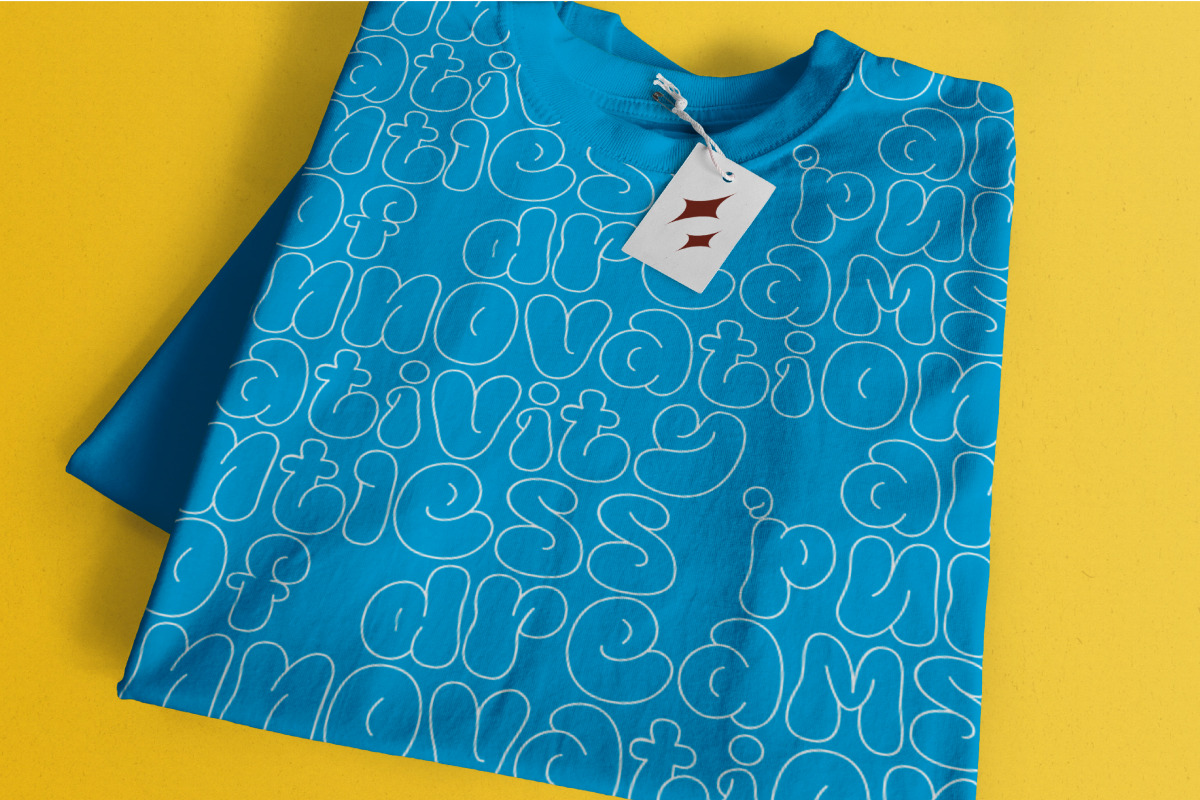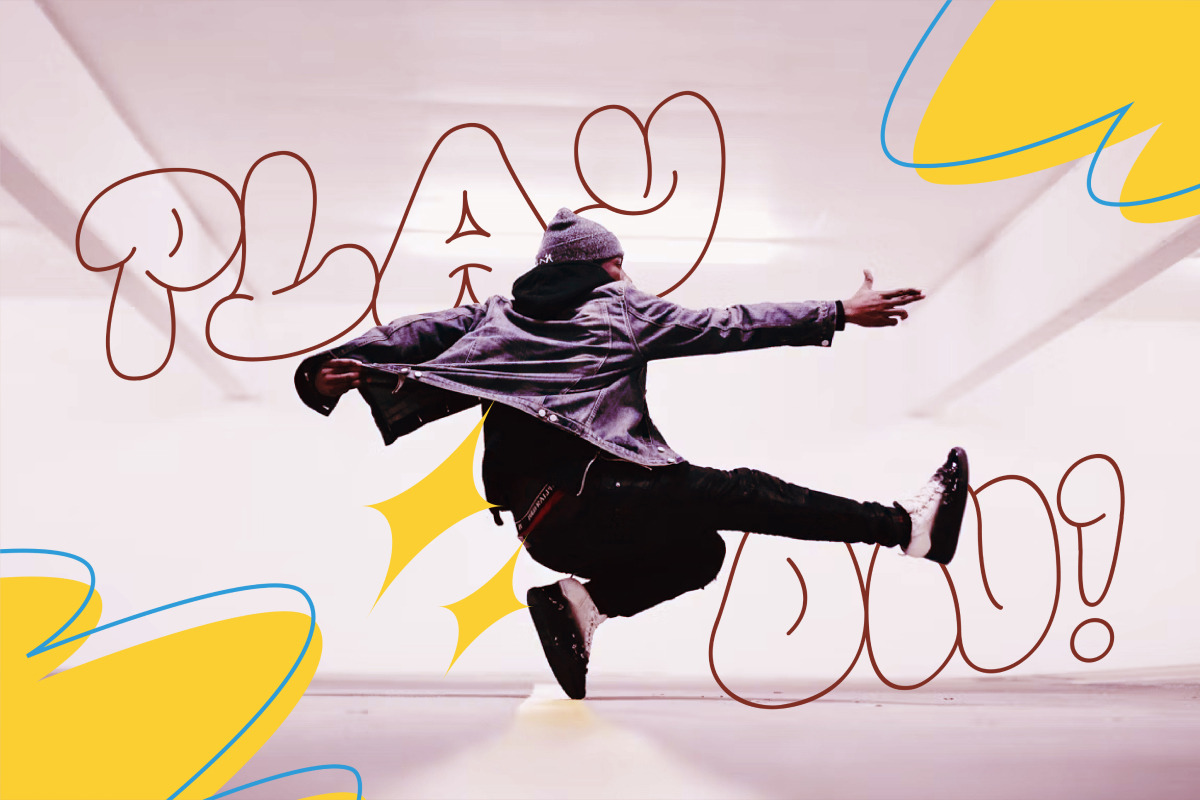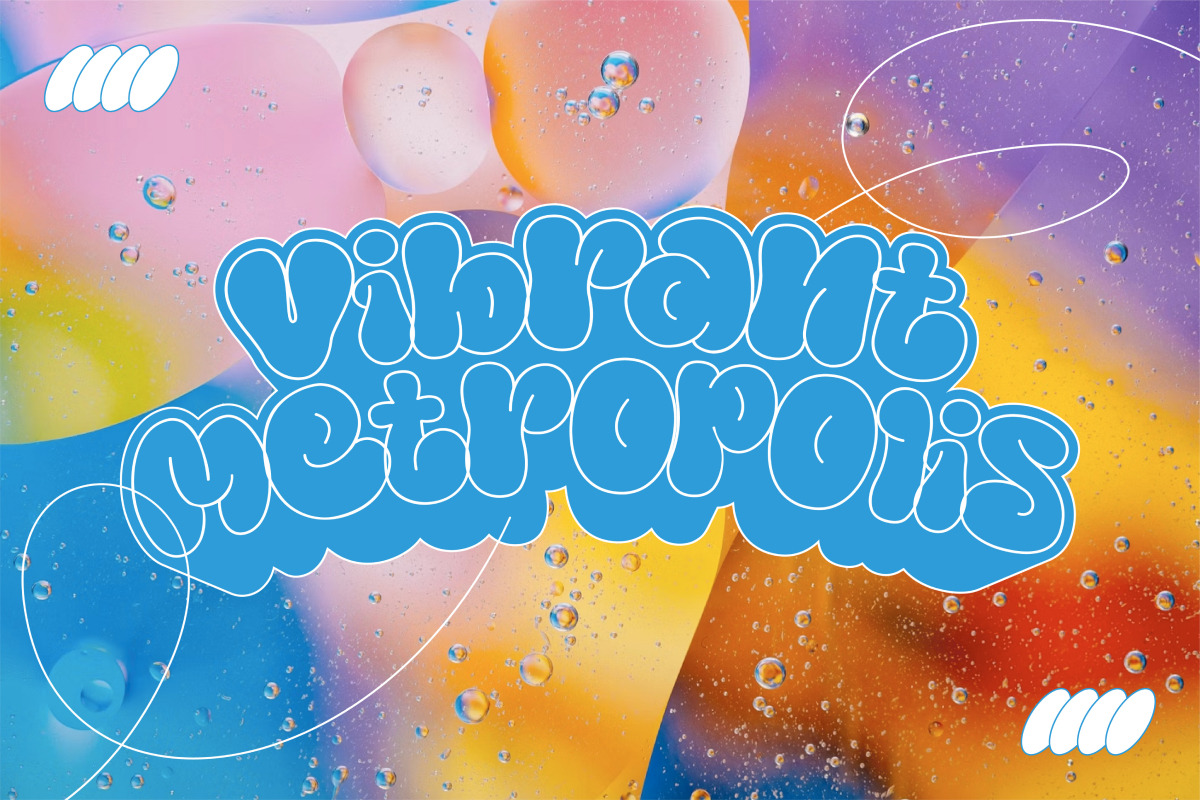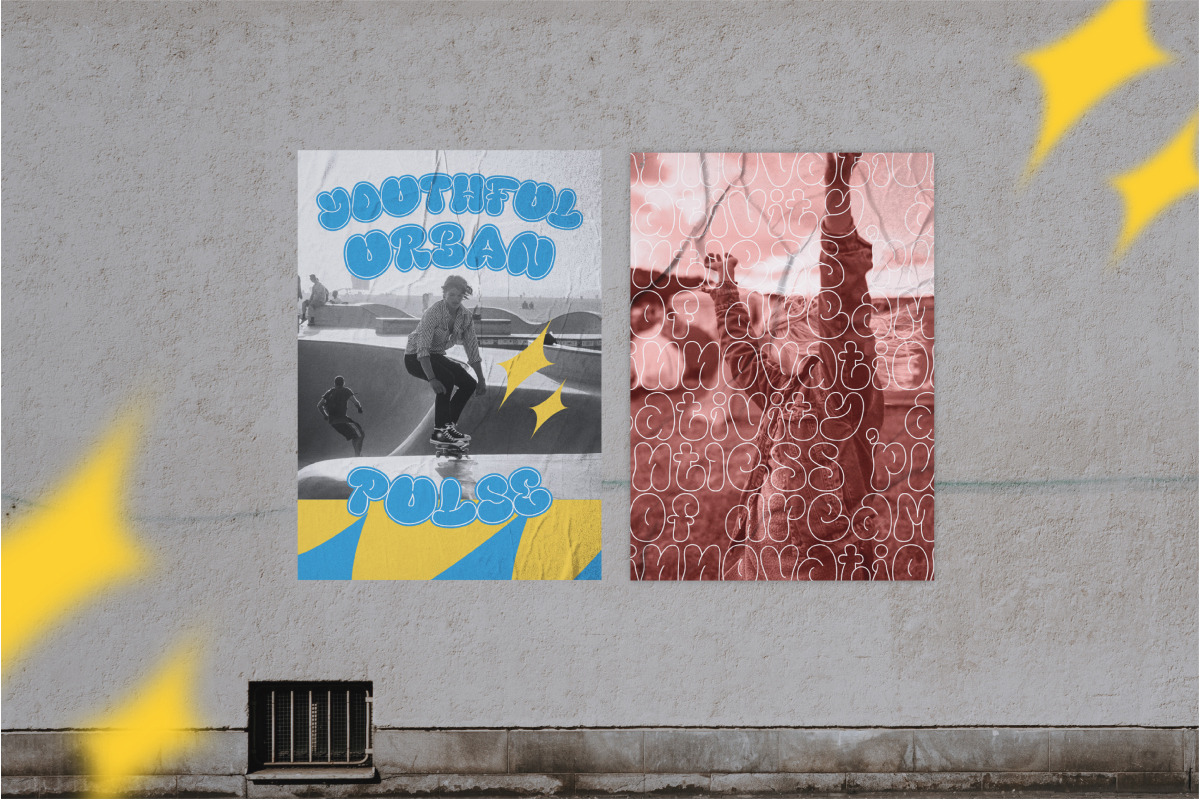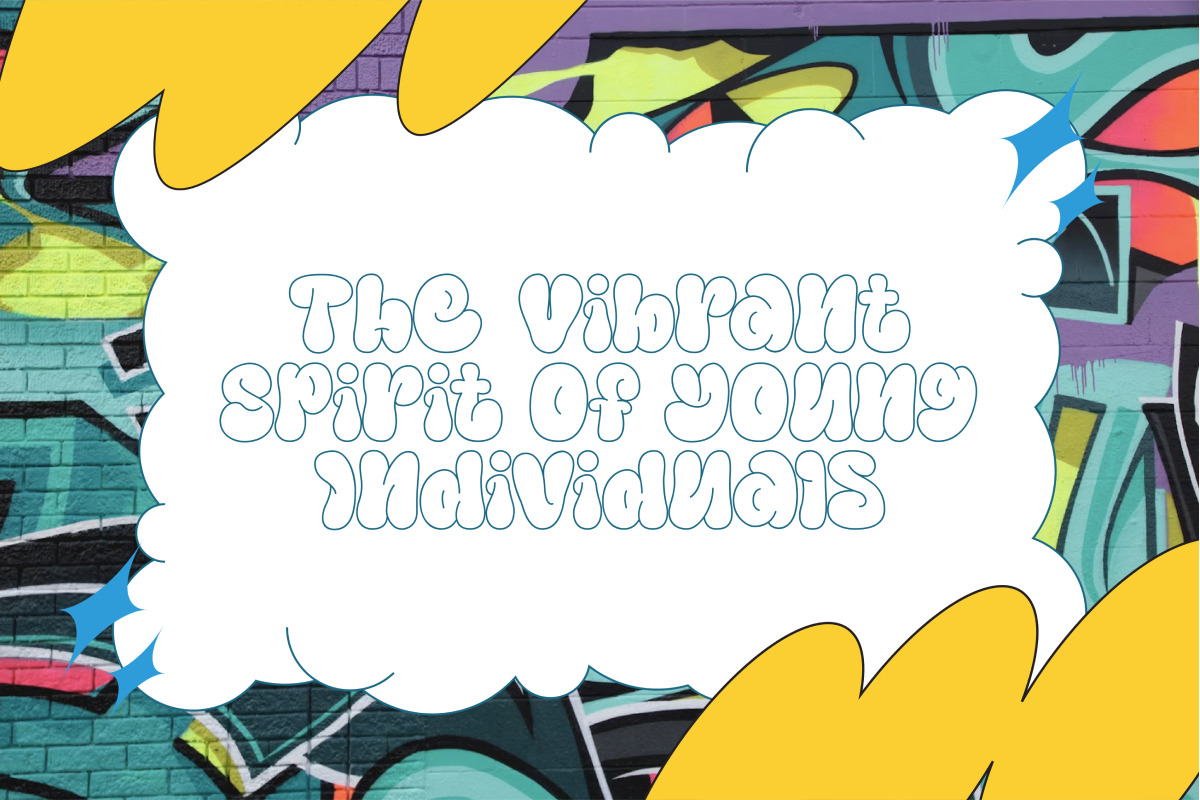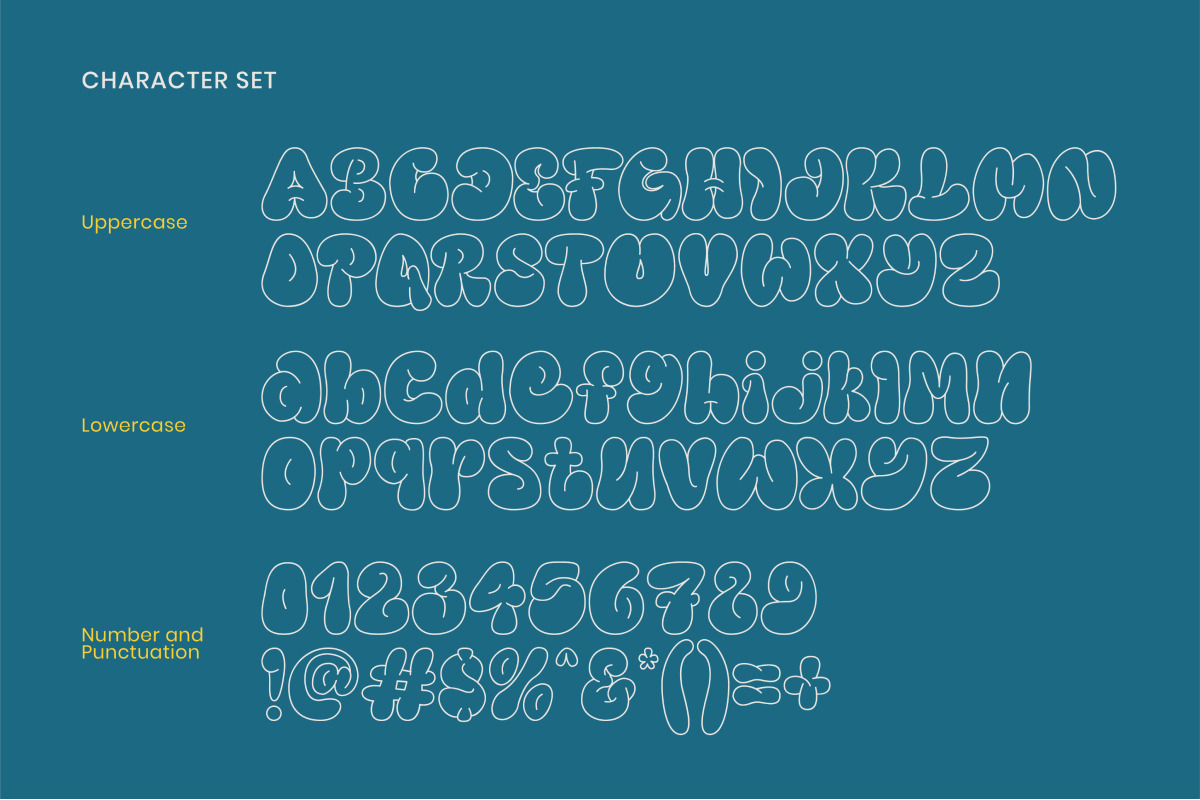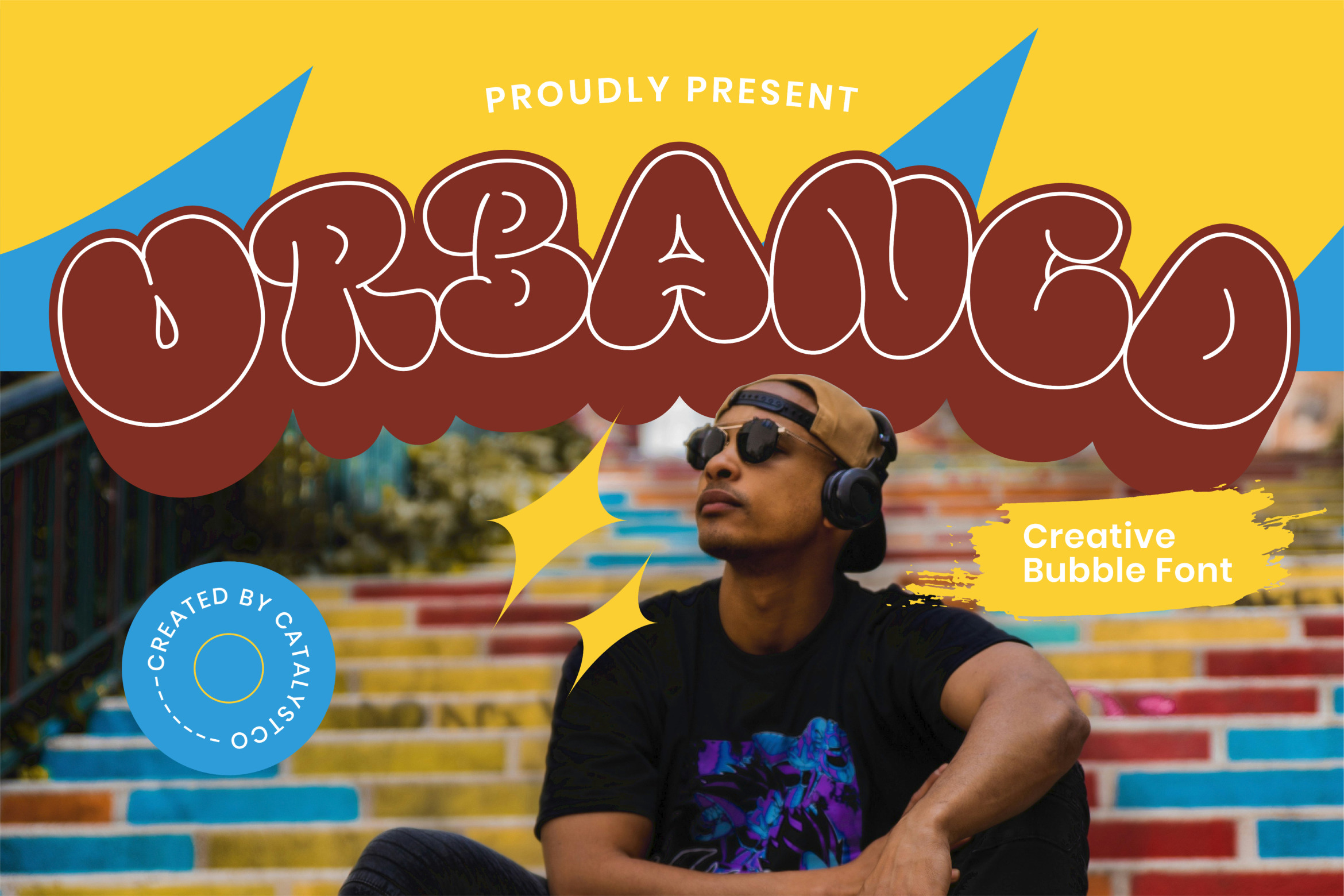
Urbanco Creative Bubble Font
Urbanco Creative Bubble Font typeface excellent used for the manufacture quote text, logotype, header magazine, and many more.
- Numeral & Punctuations